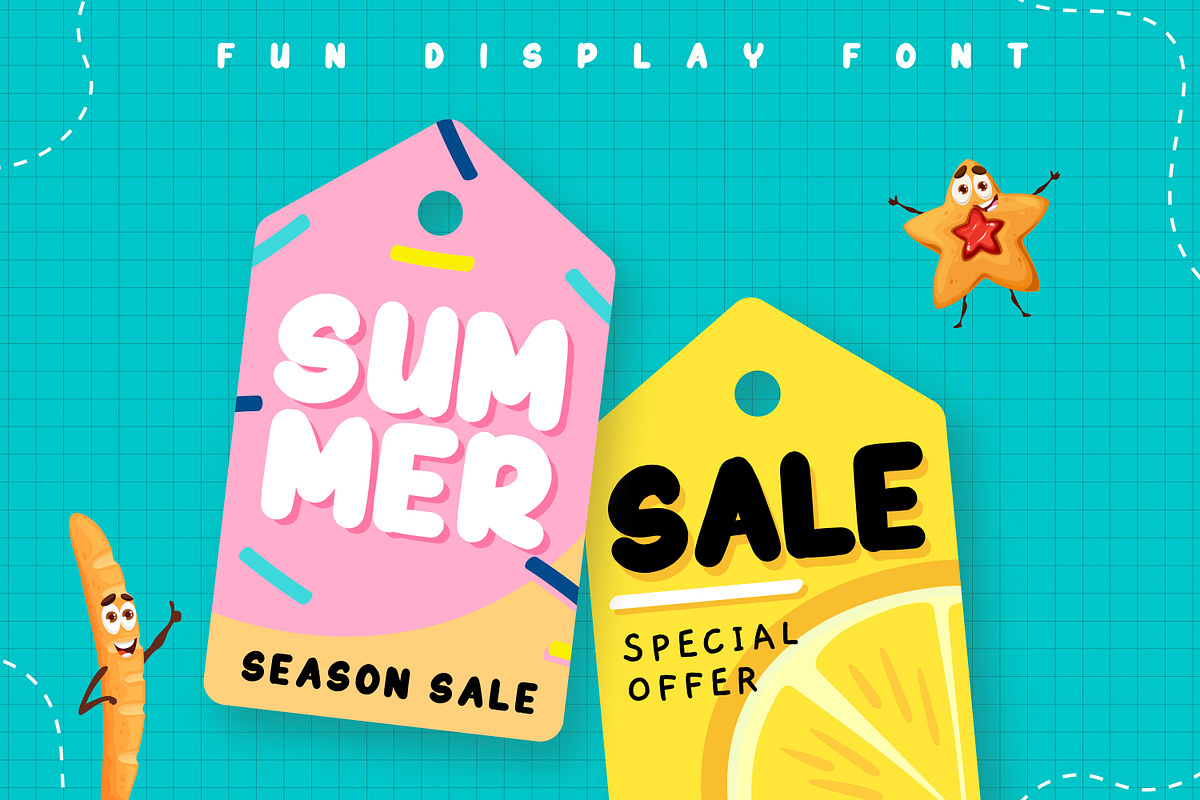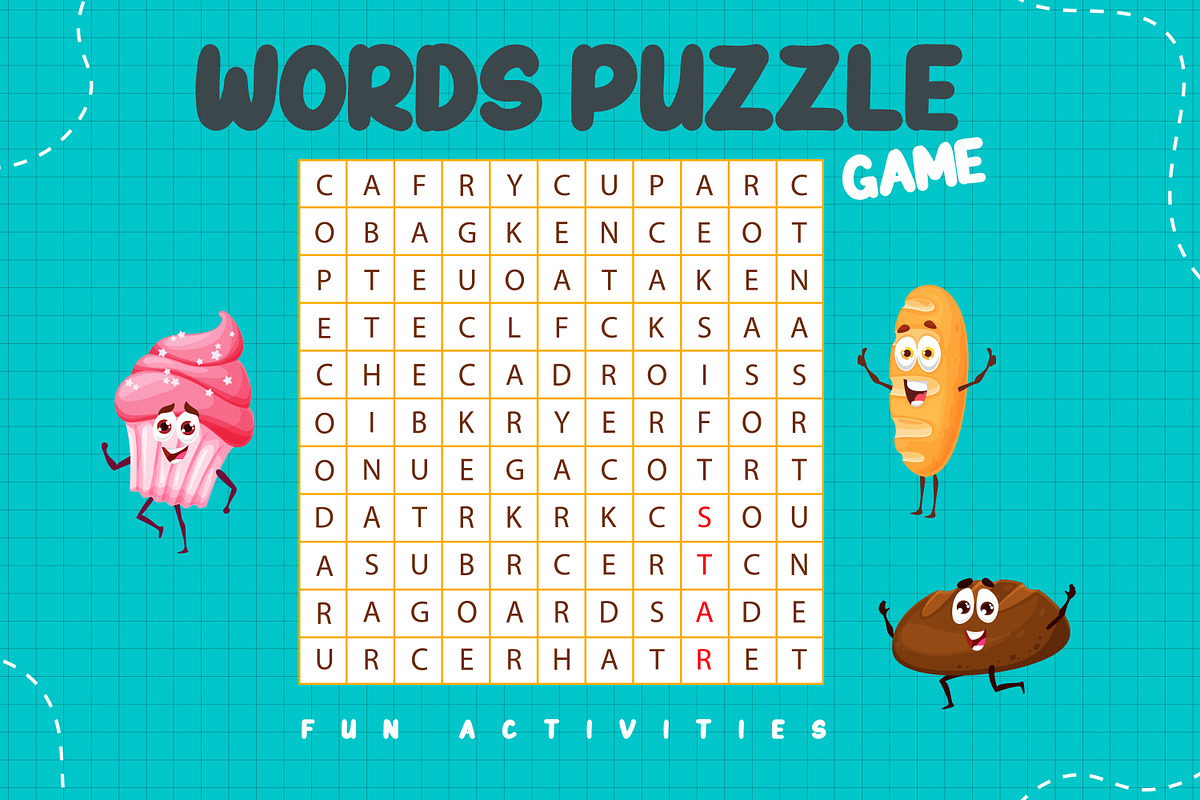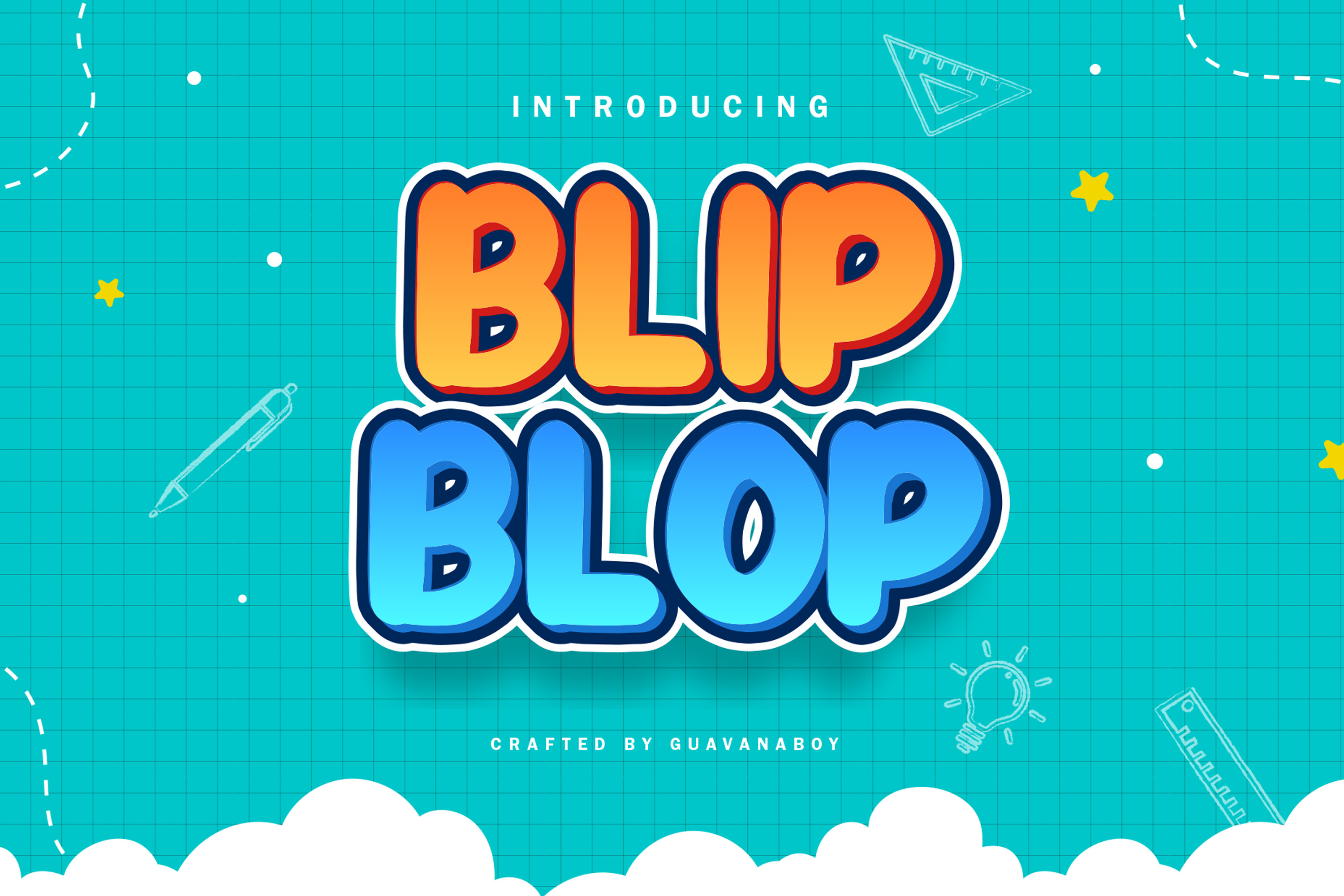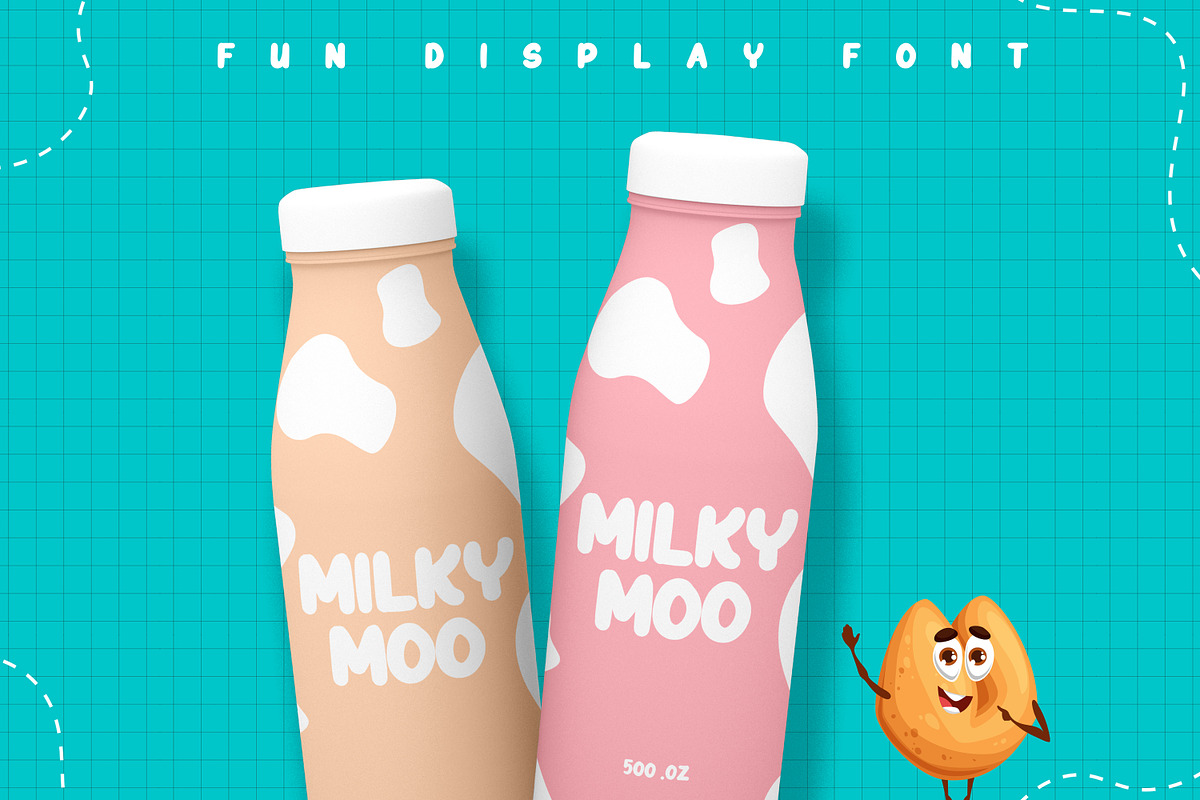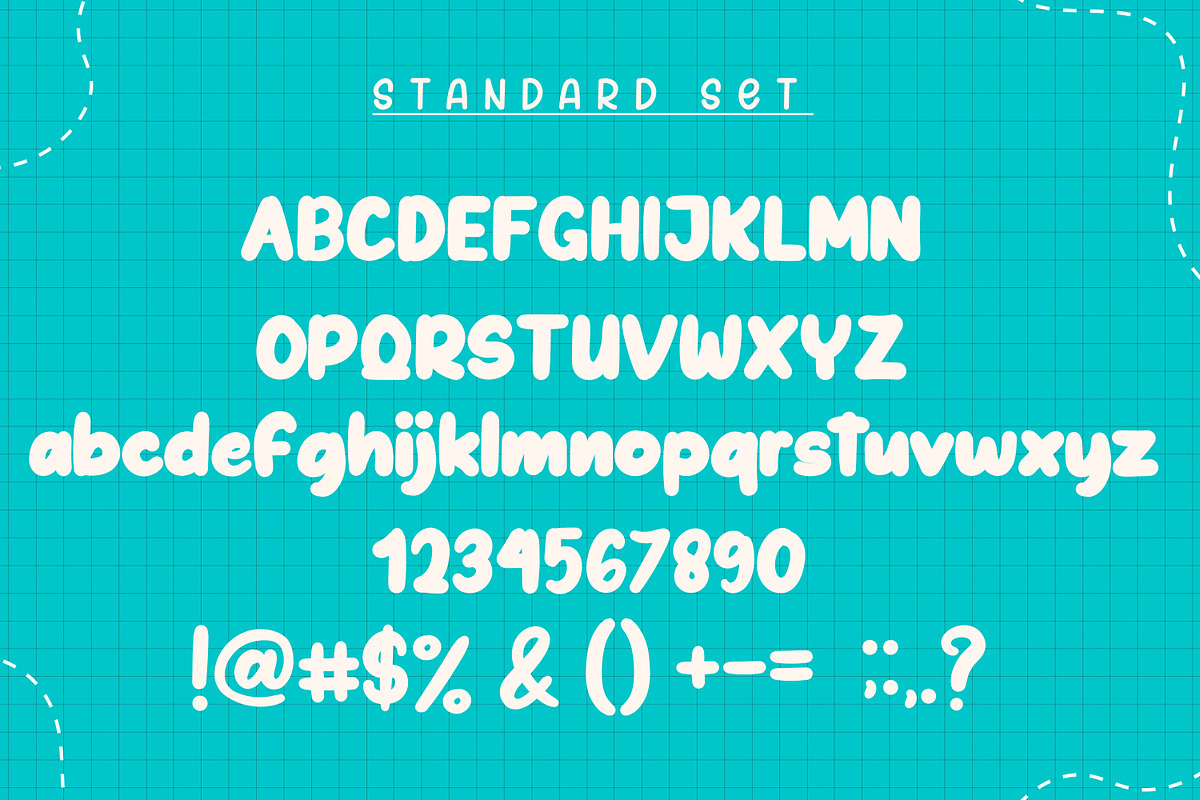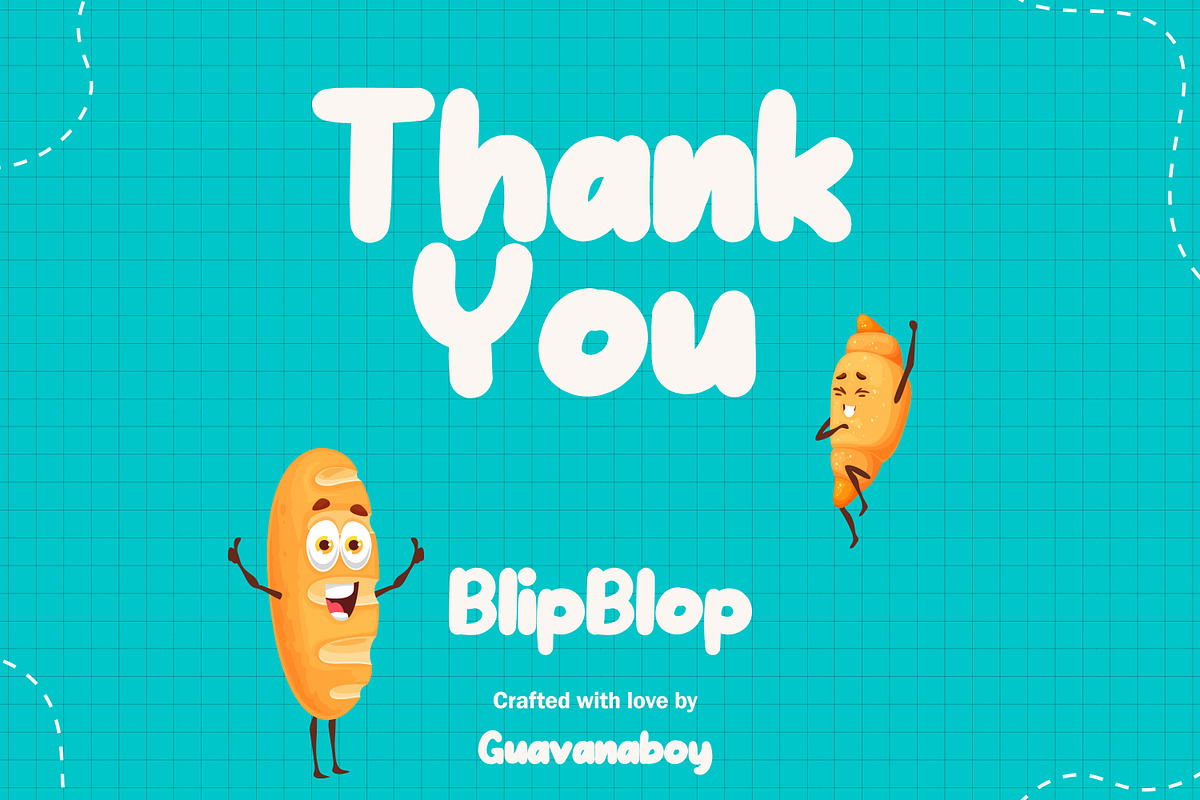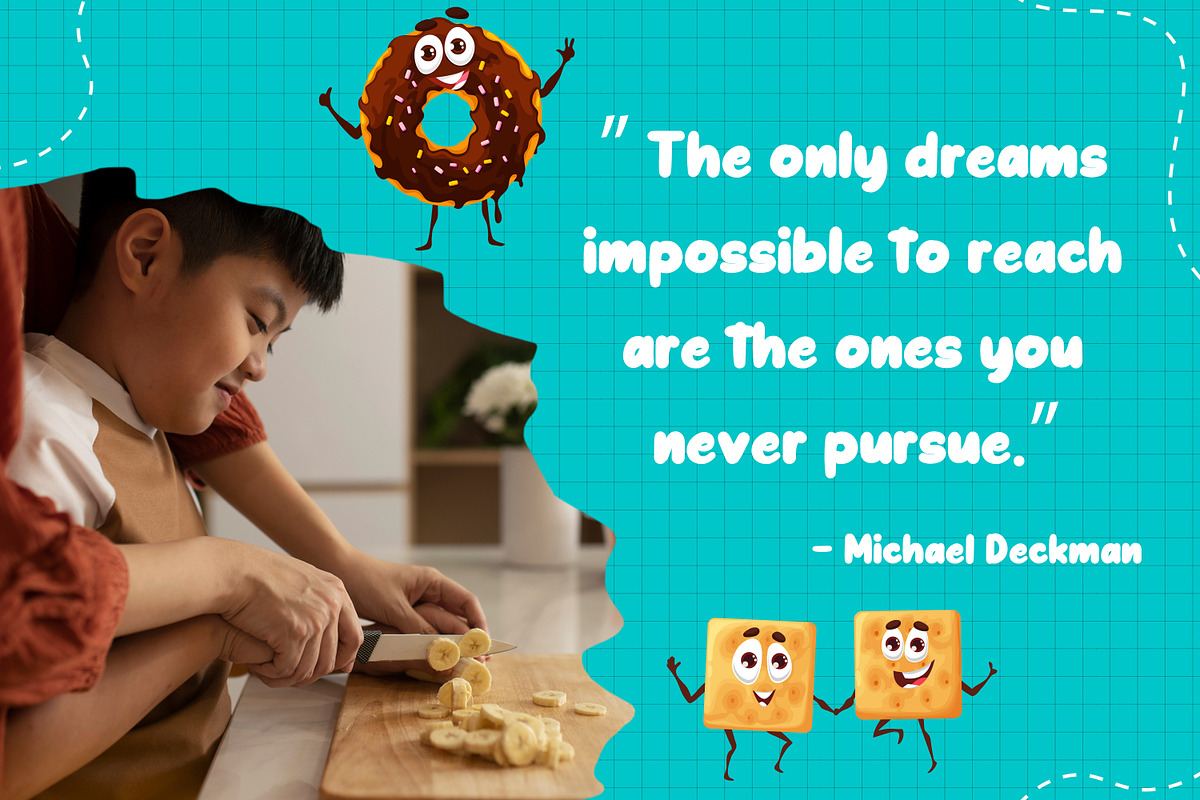
BlipBlop Instagram Fun Display Font
BlipBlop Font - A fun display font. Includes a playful handwritten-style font to dress up your text - by Guavanaboy.